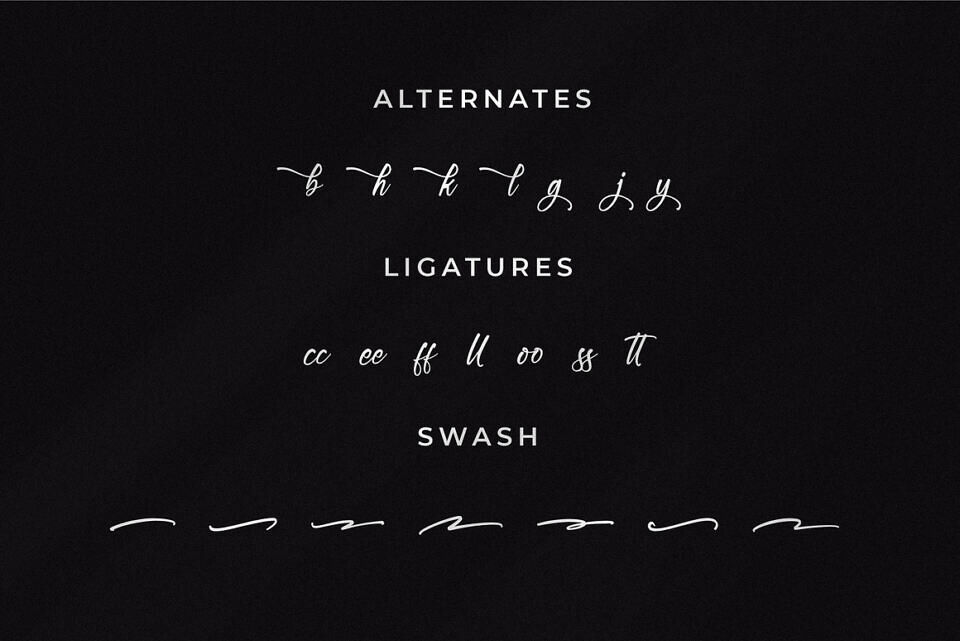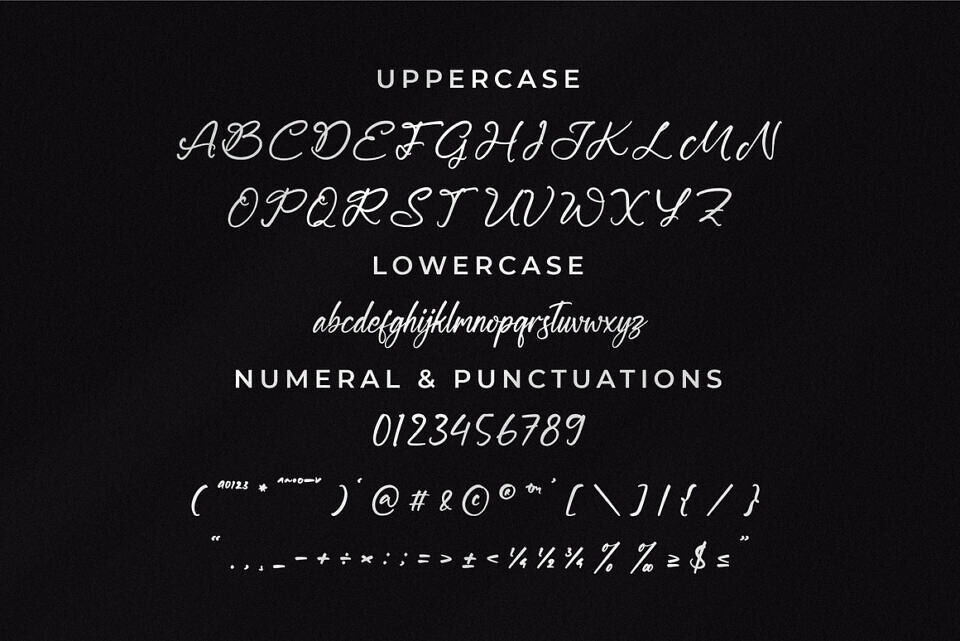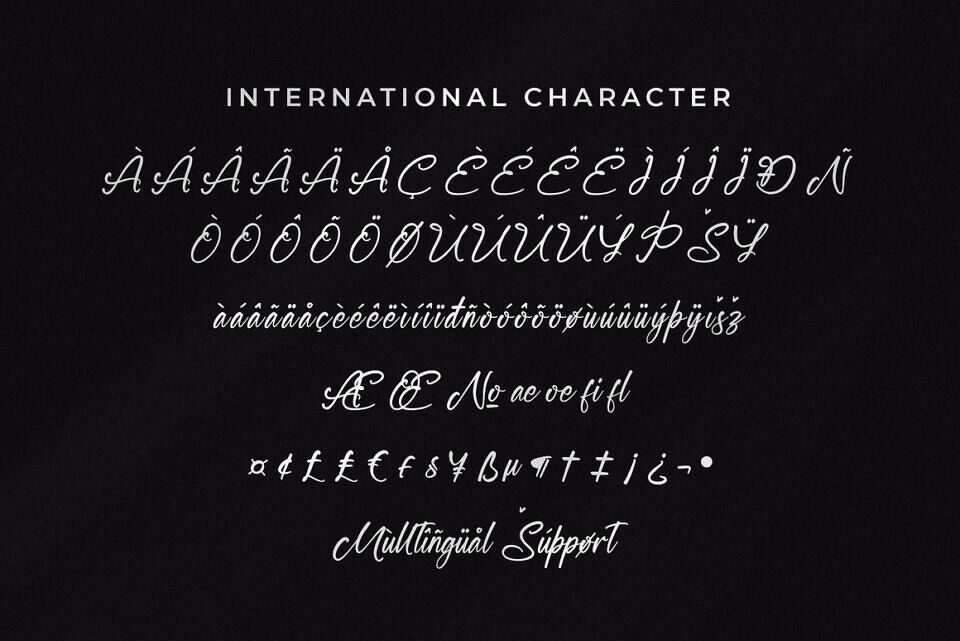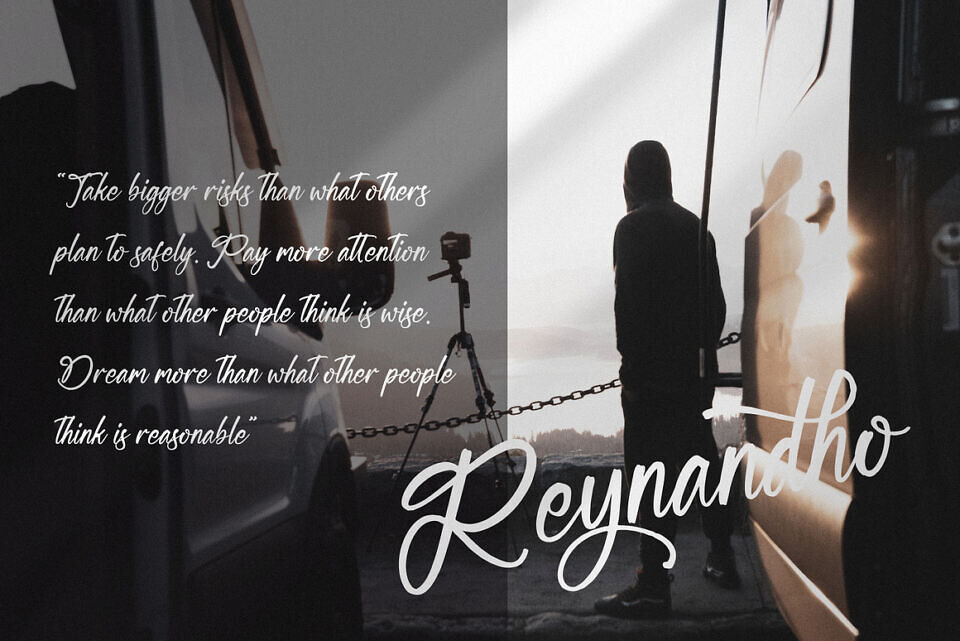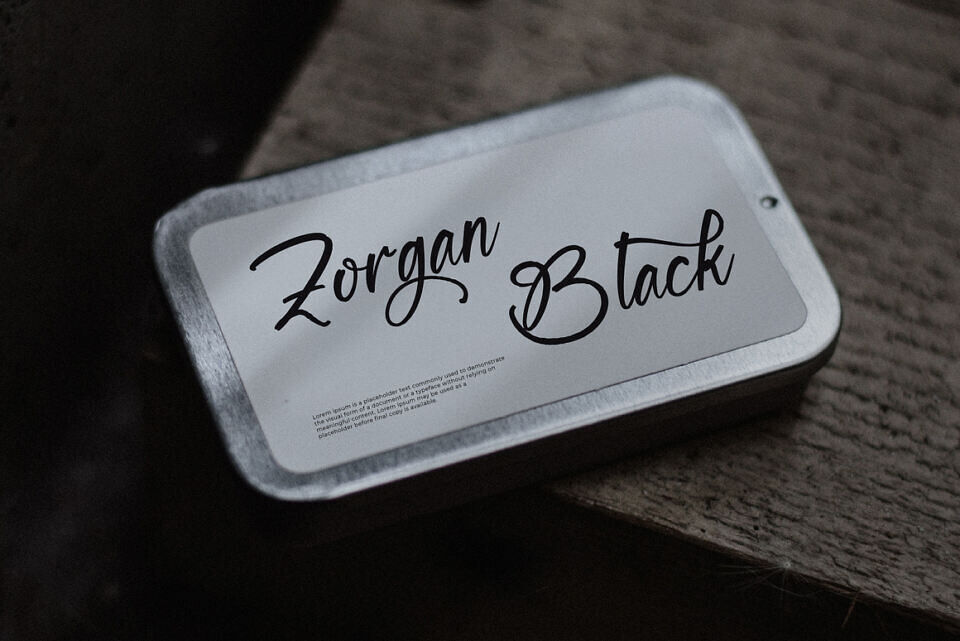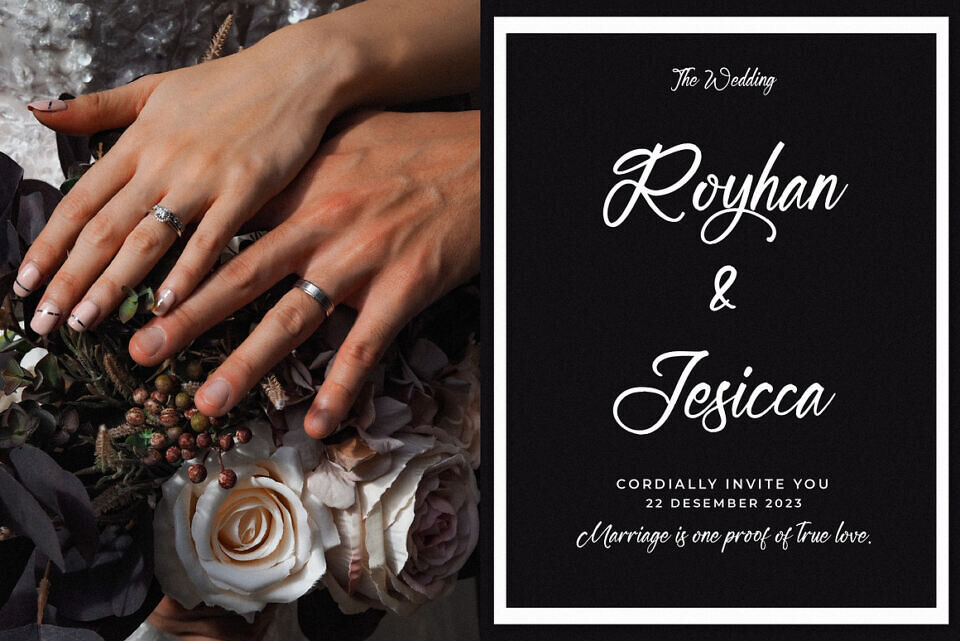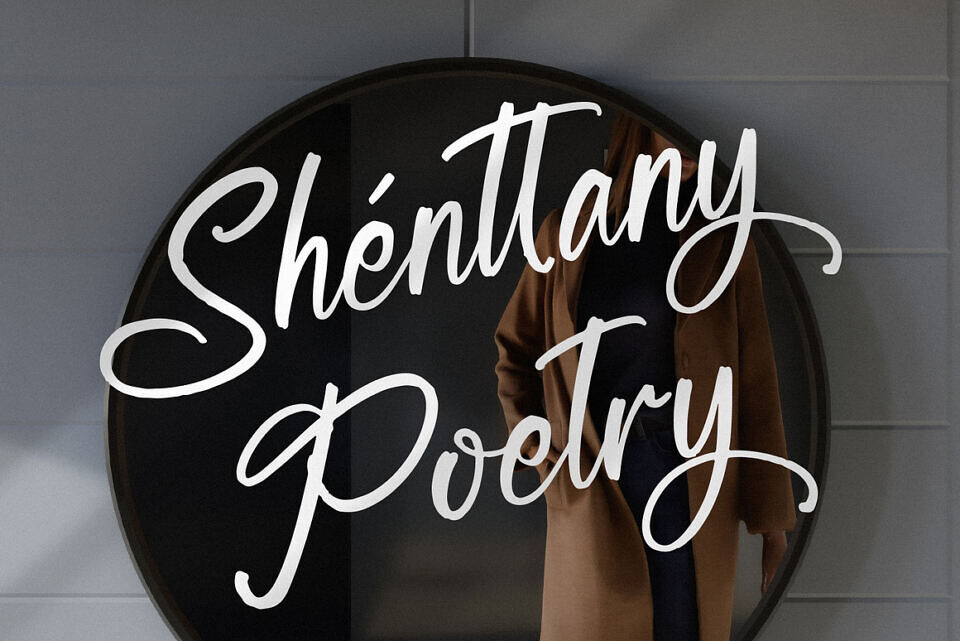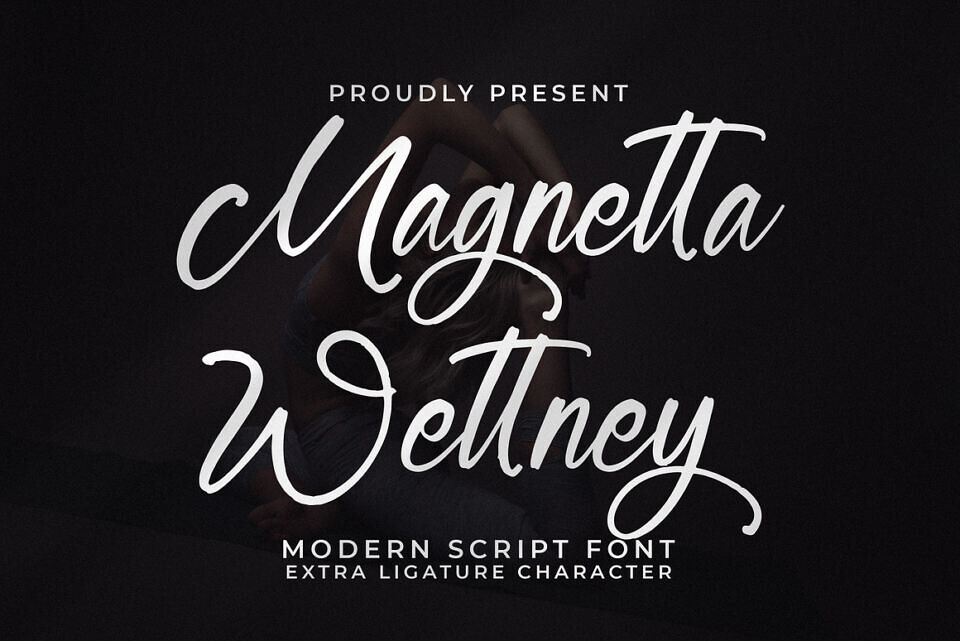
Magnetta Wettney Font
Magnetta Wettney is a Modern Script Font from Integritype Studio perfect for any project like: logos, branding projects, homewares designs, product packaging, mugs, quotes, posters, shopping bags, t-shirts, covers books, business cards, invitation cards, greeting cards, labels, photography, watermarks, special events and all your other luxury projects that require a premium taste.